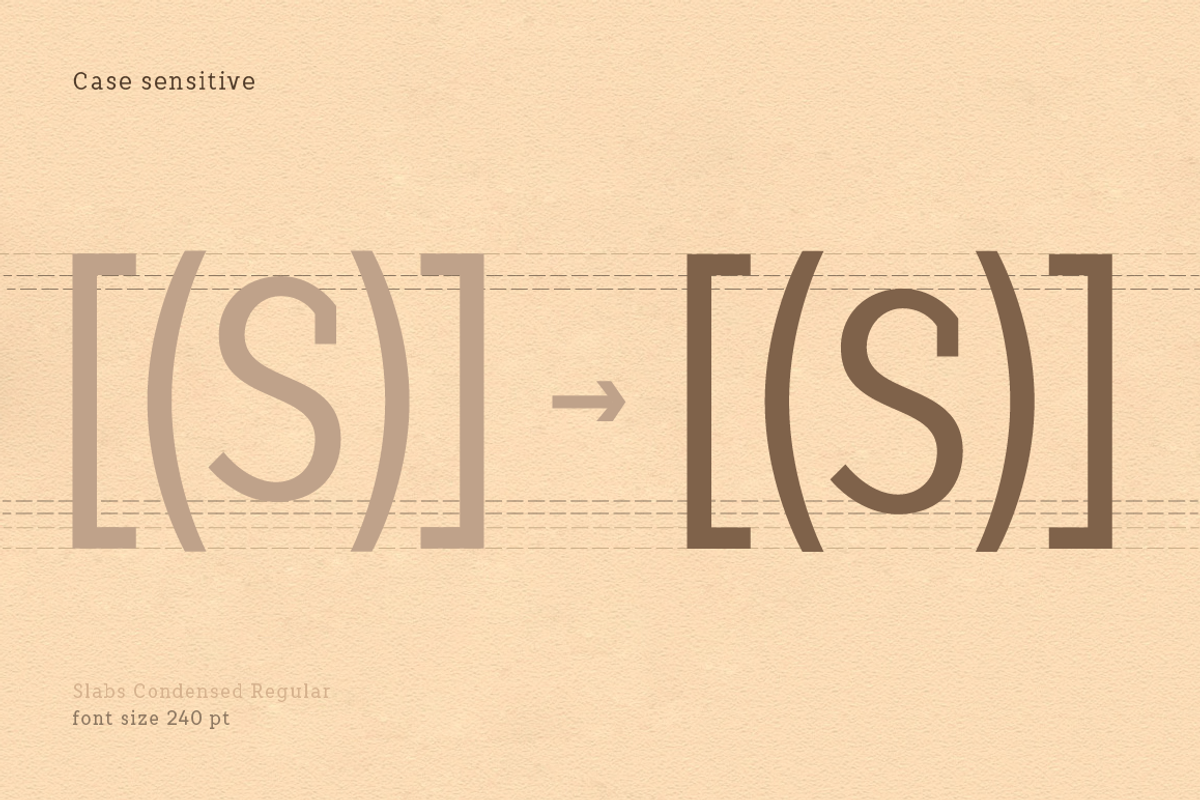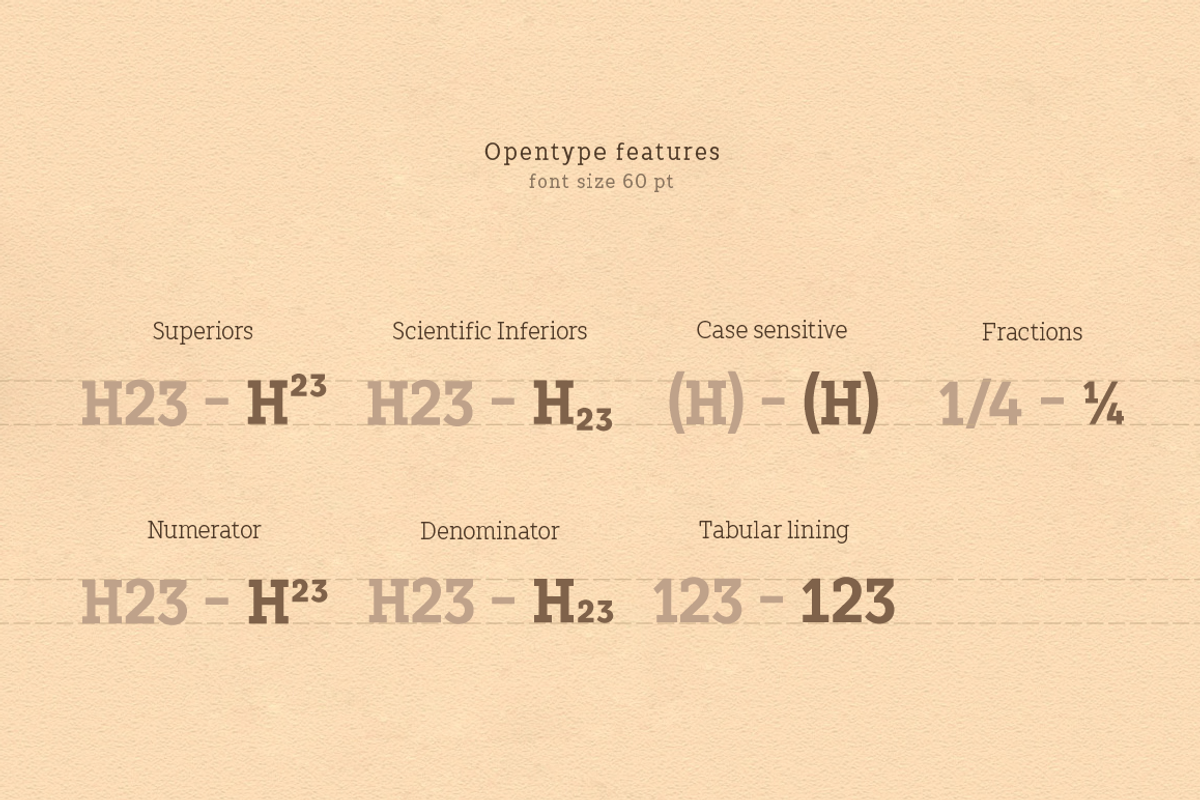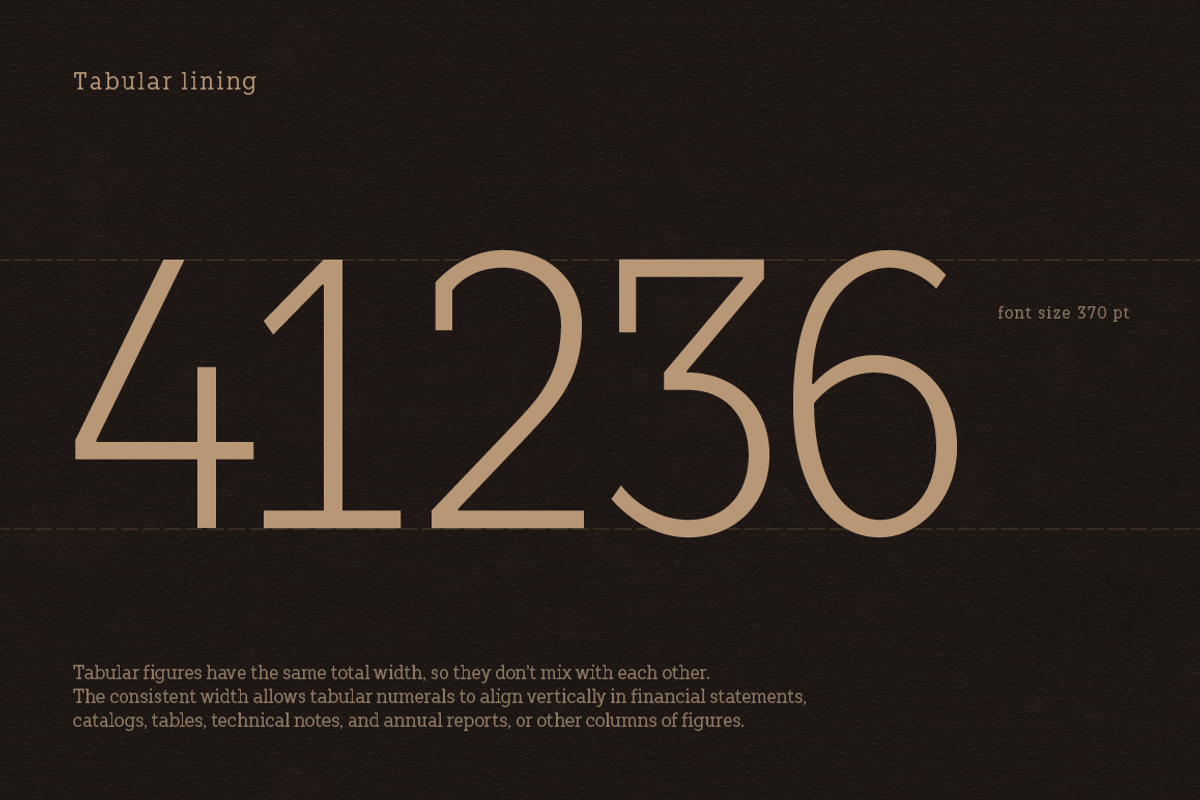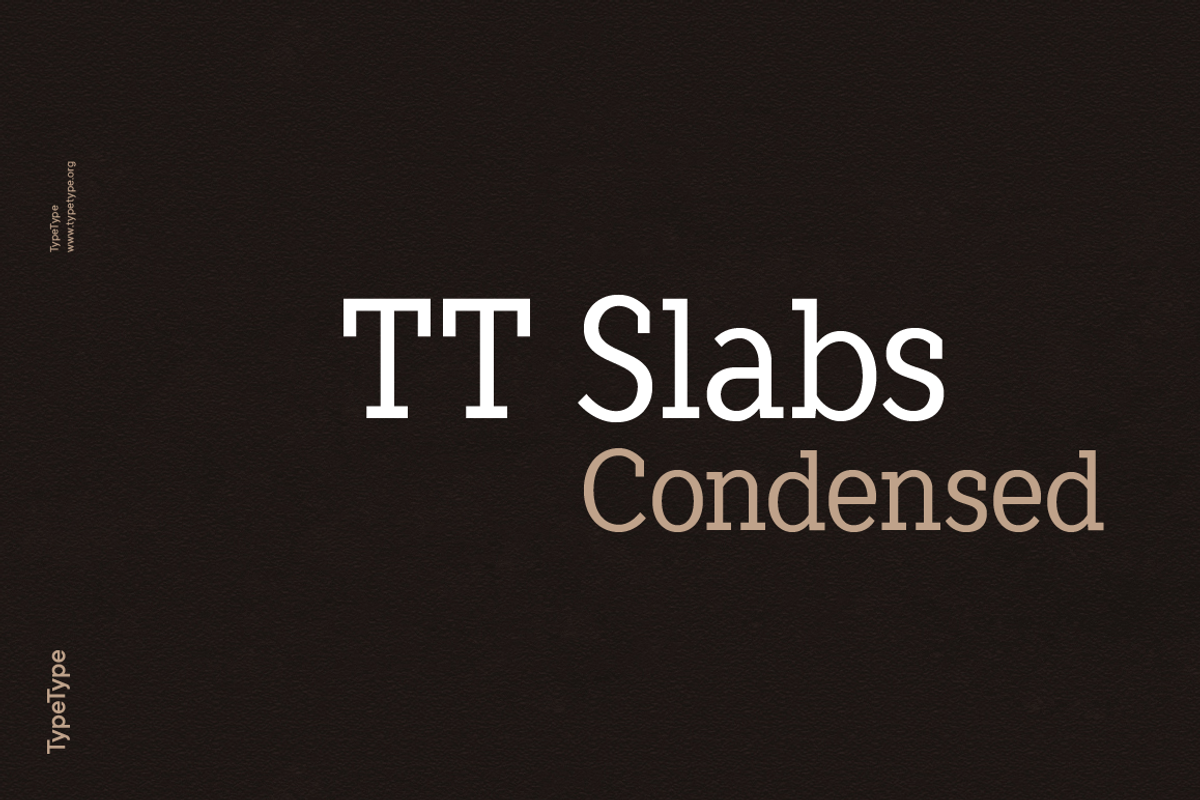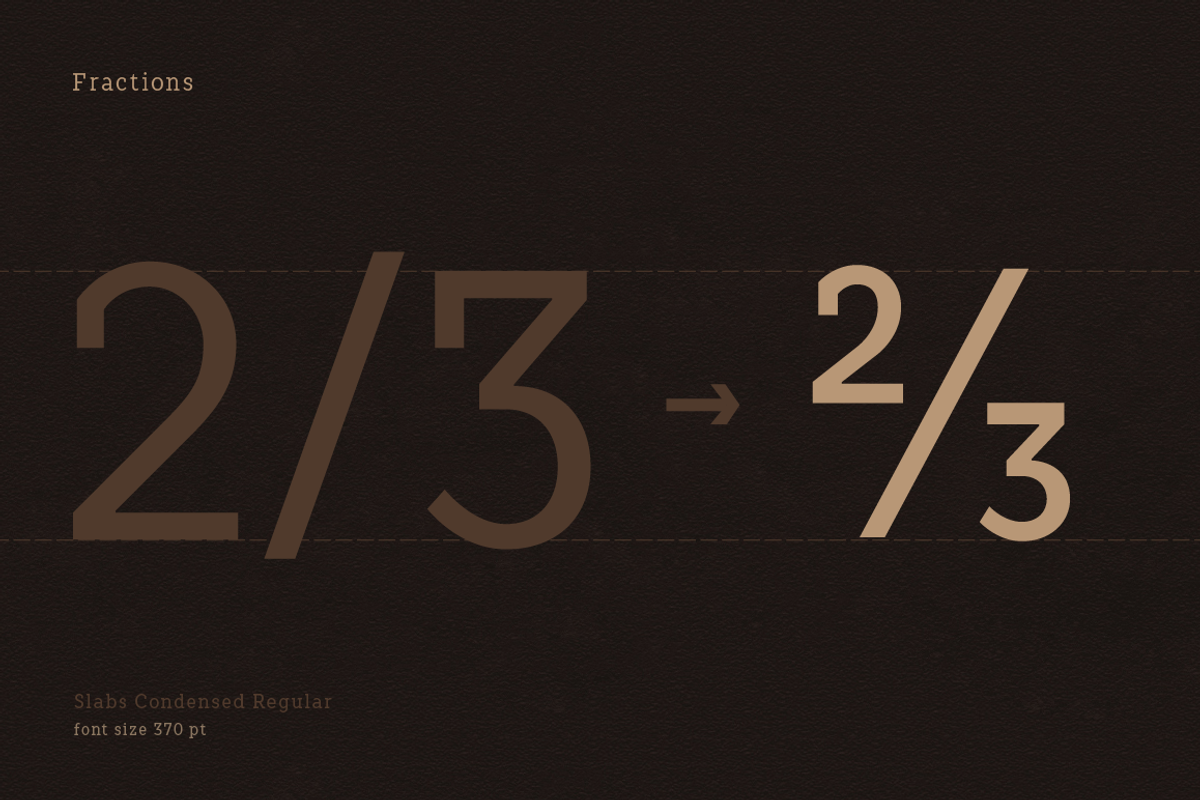
TT Slabs Condensed
What’s new in update 1.110:
- Case Sensitive Forms
- Tabular Figures
- Fractions
- Numerators
- Denominators
- Superiors
- Scientific Inferiors
TT Slabs Condensed is a Condensed version of our TT Slabs font family https://crmrkt.com/Gg5y9 . This new version is designed for strong headlines and design presentations.
- 5 weights & 5 Italics
- 415+ glyphs for each typeface
Very well suited for designers who create Identity and logos, as well as for interior design and navigation. The special features of the typefaces include the classic formula: Thin, Light, Regular, Bold & Black.